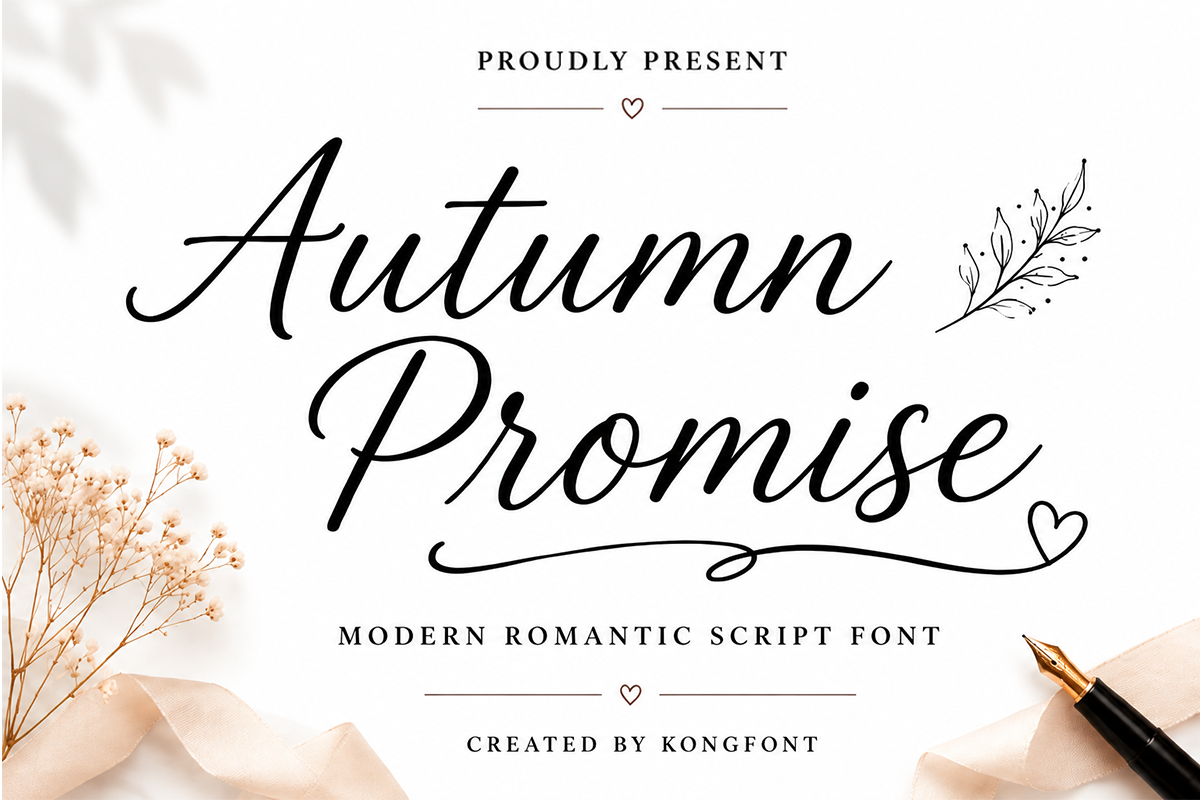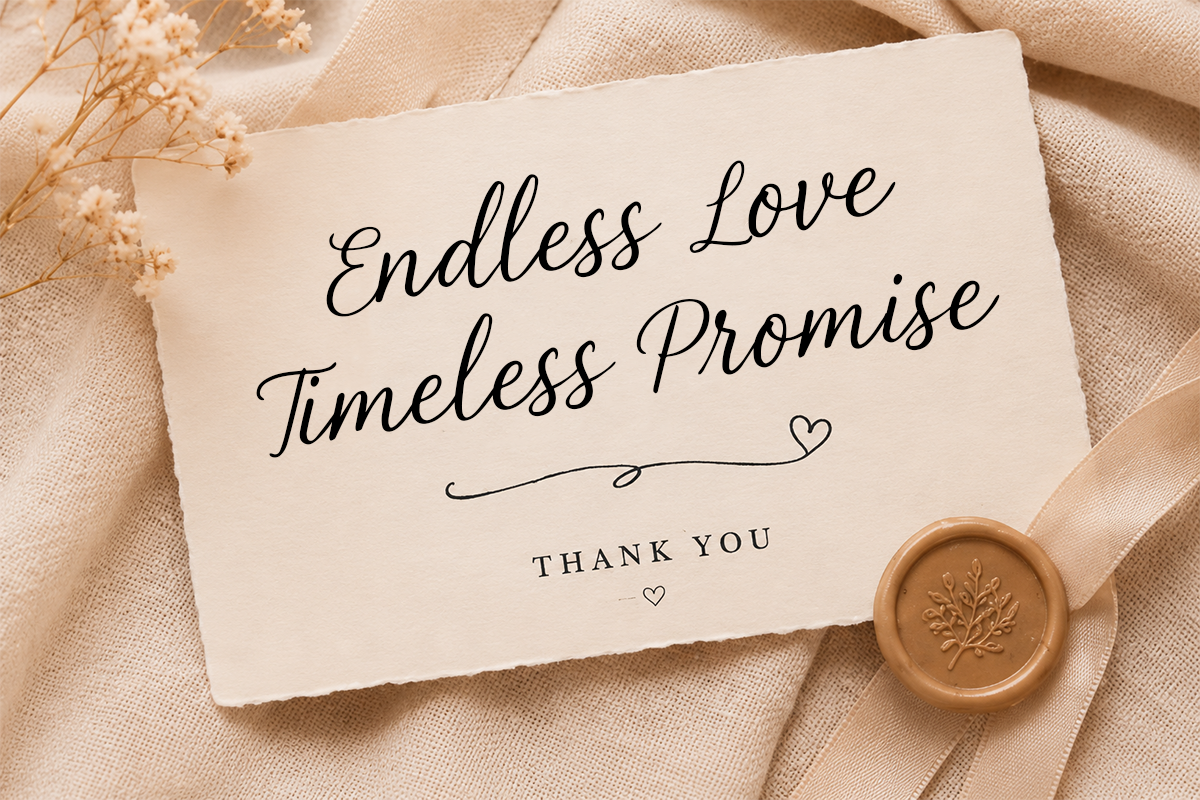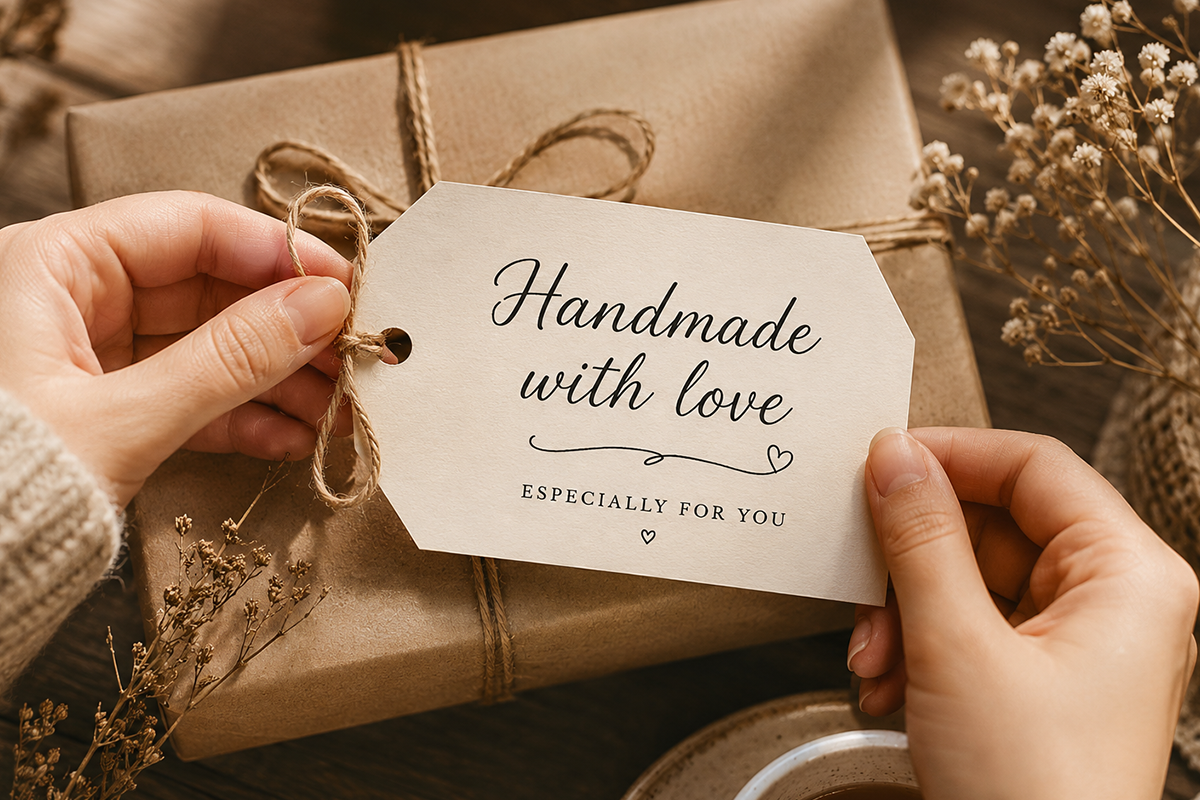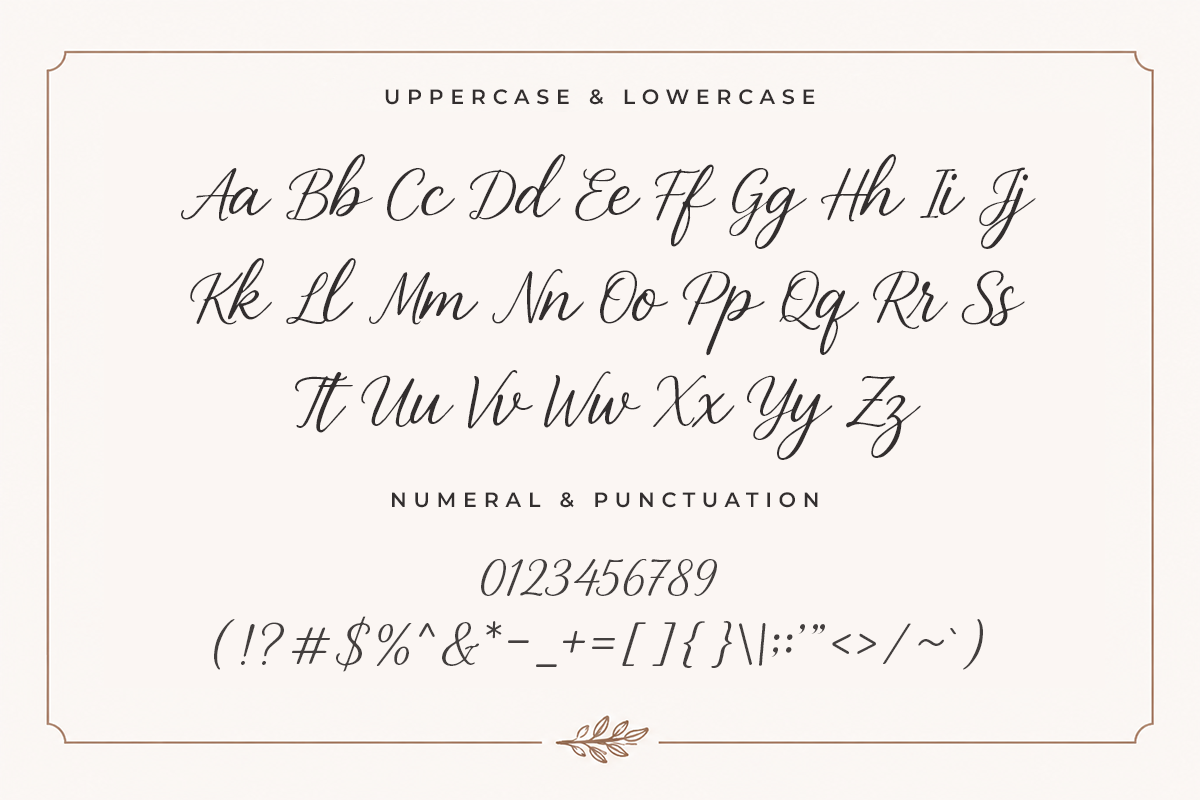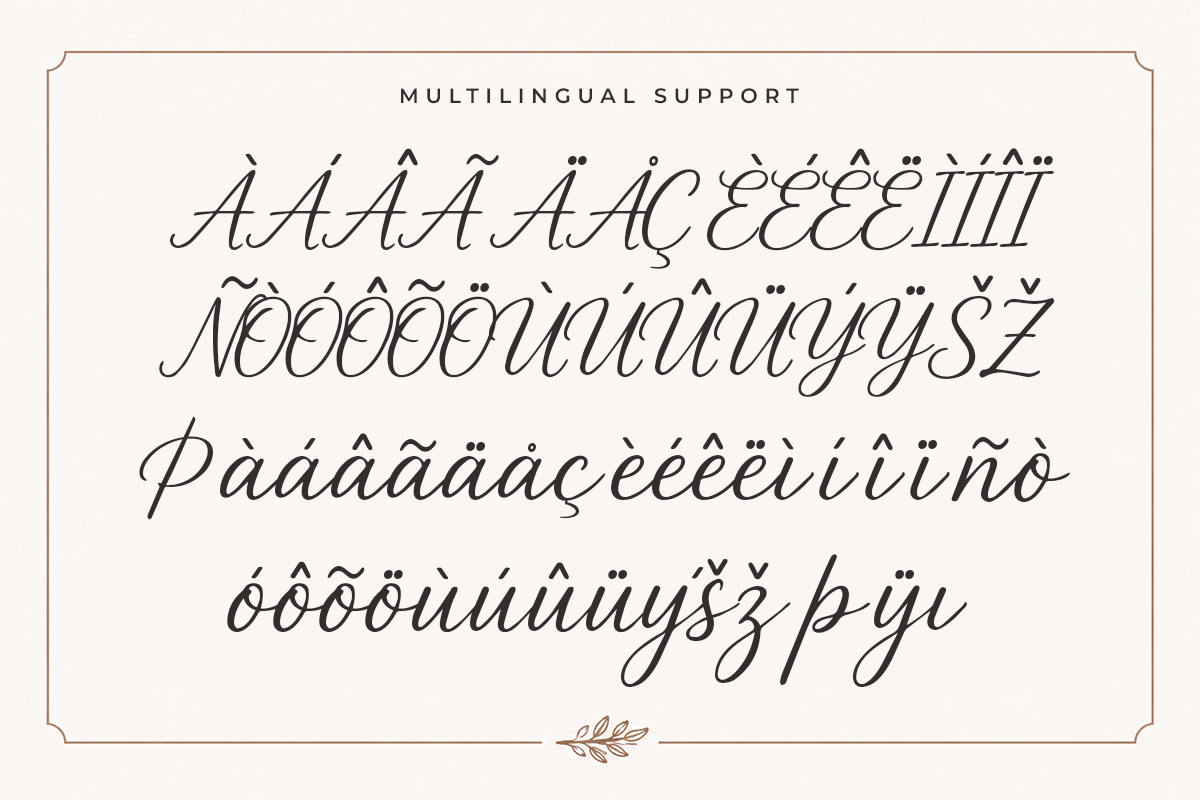
Autumn Promise A Modern Elegant Script Font
Autumn Promise A Modern Elegant Script Font is a romantic script font with a soft, elegant, and timeless personality. Its graceful flowing strokes and delicate curves create the feeling of beautifully handwritten love letters, bringing warmth and intimacy to every word.
With its natural rhythm, expressive swashes, and sophisticated letterforms, Autumn Promise A Modern Elegant Script Font blends classic romance with modern elegance. It feels personal, refined, and effortlessly luxurious—perfect for designs that need an emotional and memorable touch.
Autumn Promise A Modern Elegant Script Font is ideal for wedding invitations, logos, branding, photography, greeting cards, quotes, packaging, editorial designs, social media content, and romantic lifestyle projects.
Inspired by timeless love stories, handwritten letters, and warm golden sunsets, Autumn Promise A Modern Elegant Script Font is more than a typeface—it turns every word into a beautiful story.